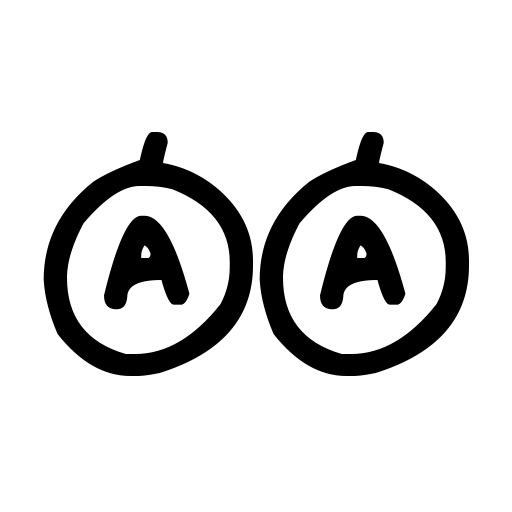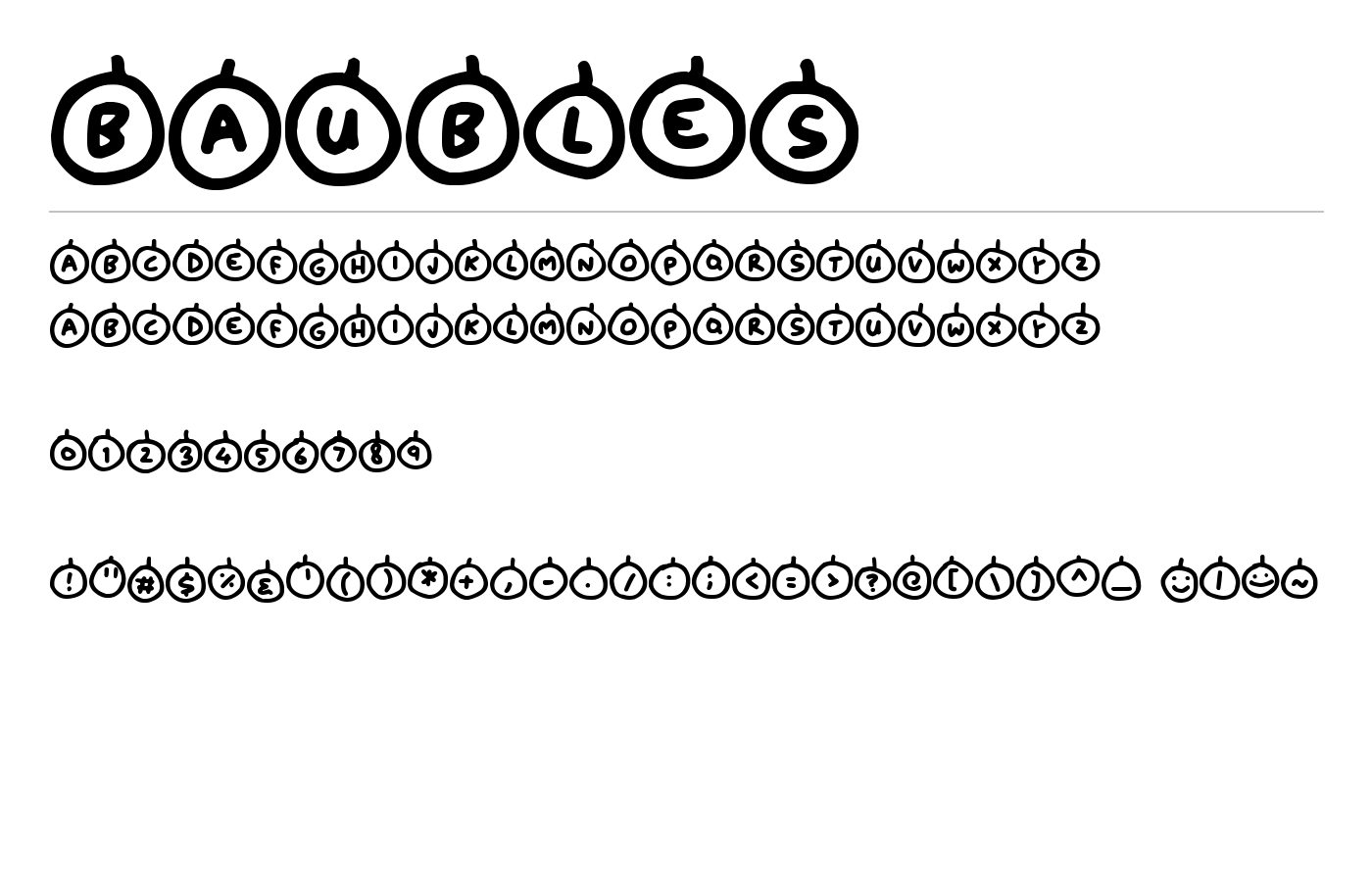
Baubles Font is a playful and whimsical sans serif typeface featuring letters enclosed within hand-drawn round shapes resembling holiday ornaments. Its casual, bold strokes and unique decorative style make it perfect for festive designs, children’s projects, and creative branding where a fun and approachable look is desired. This font works best in headlines, invitations, and packaging that aim to capture a cheerful and lively spirit.
Baubles Font